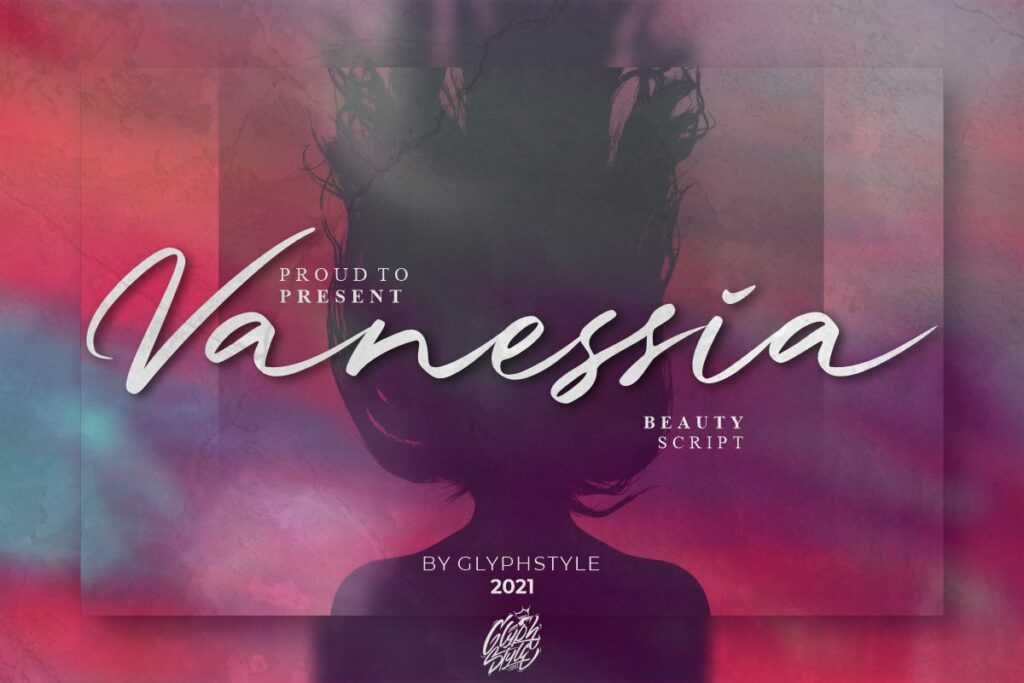
Vanessia Font
Introducing the new Vanessia Handwritten Font is a beautiful script font that looks thick and thin. Beautiful fonts with natural hand scratches with brush. This signature font is perfect for cover, watermarks, branding, name, business cards, product, logos, etc.
Vanessia is perfect for branding projects, logos, wedding designs, social media posts, advertisements, product packaging, product designs, labels, photography, watermarks, invitations, stationery, and any project that requires a sense of script typeface.
Vanessia Handwritten Script Font